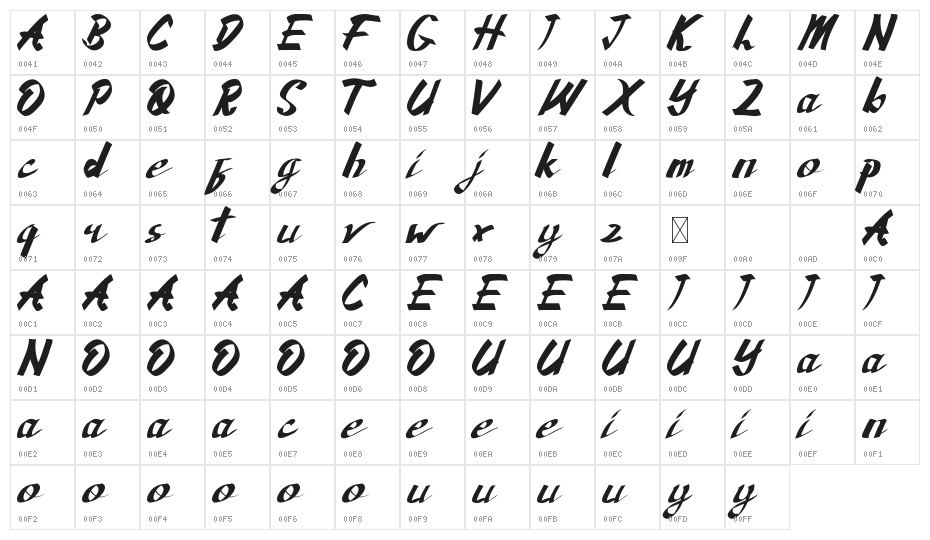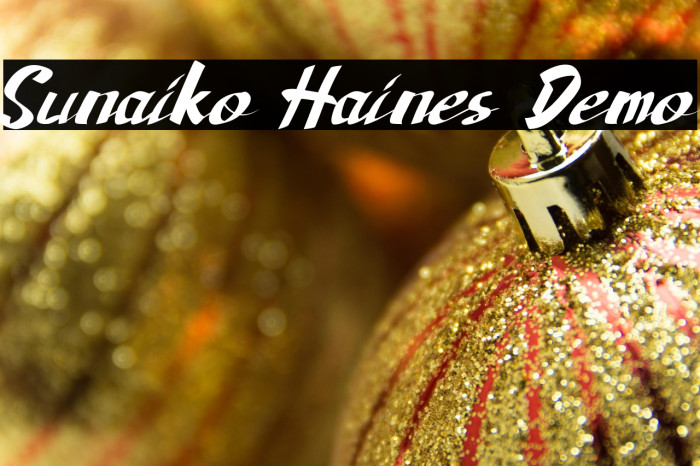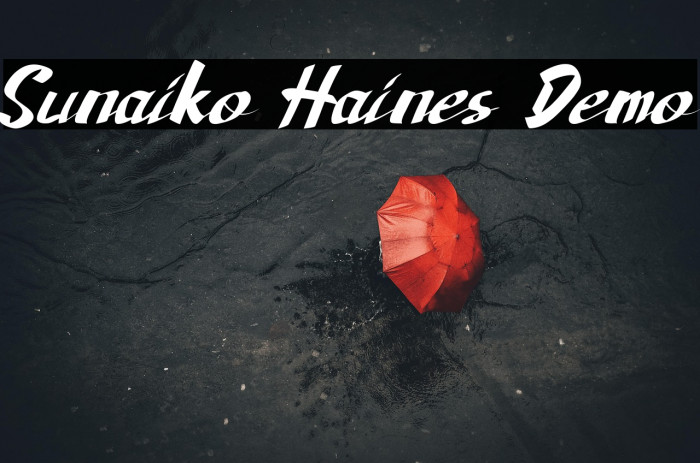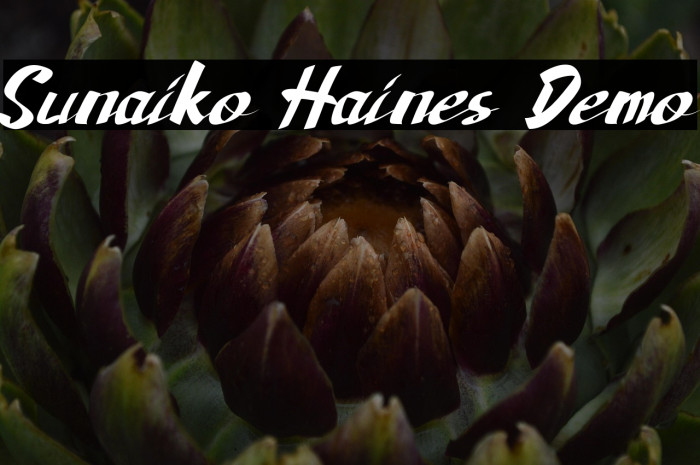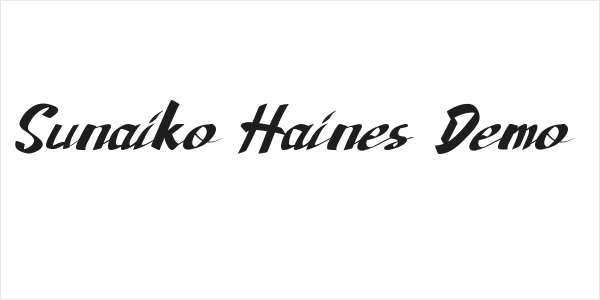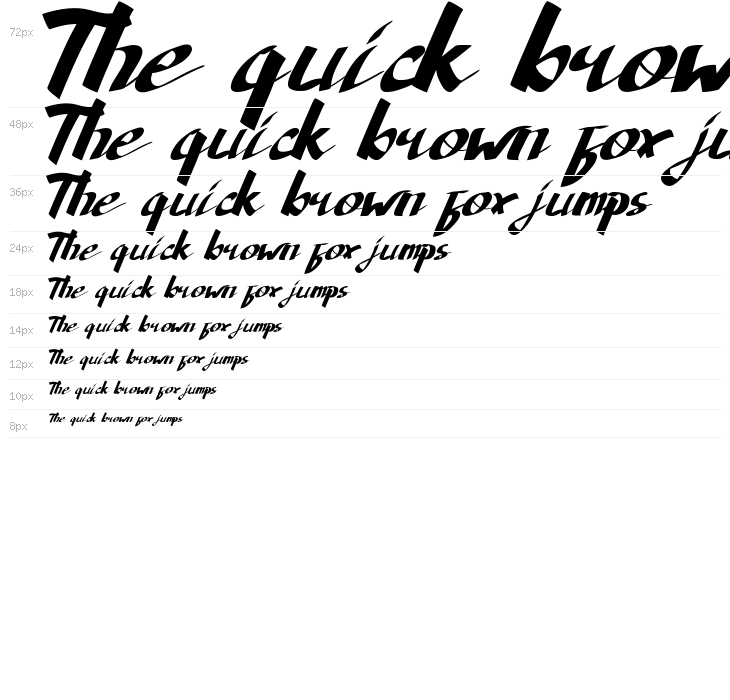
Sunaiko Haines Demo Font
Sunaiko Haines Demo Description
This font exhibits a bold and dynamic script style, characterized by its sweeping, cursive strokes and pronounced angularity. The uppercase letters are particularly striking, with sharp edges and a sense of motion that suggests a handwritten flair. The lowercase letters maintain this energetic style, with some letters featuring unique loops and curves that add to the overall fluidity. The font's boldness is consistent throughout, making it highly legible while retaining an artistic touch. Its dramatic appearance is suitable for creating impactful designs that require a personal and expressive touch.
| Proposed Projects | Ideal for branding, logos, posters, and invitations where a personal and expressive touch is desired. |